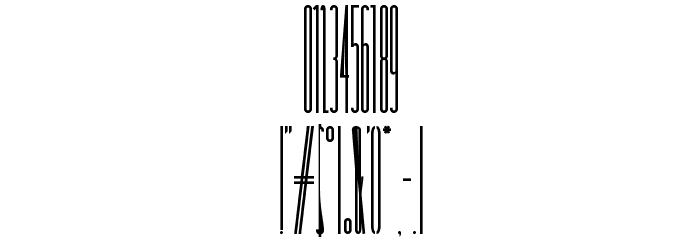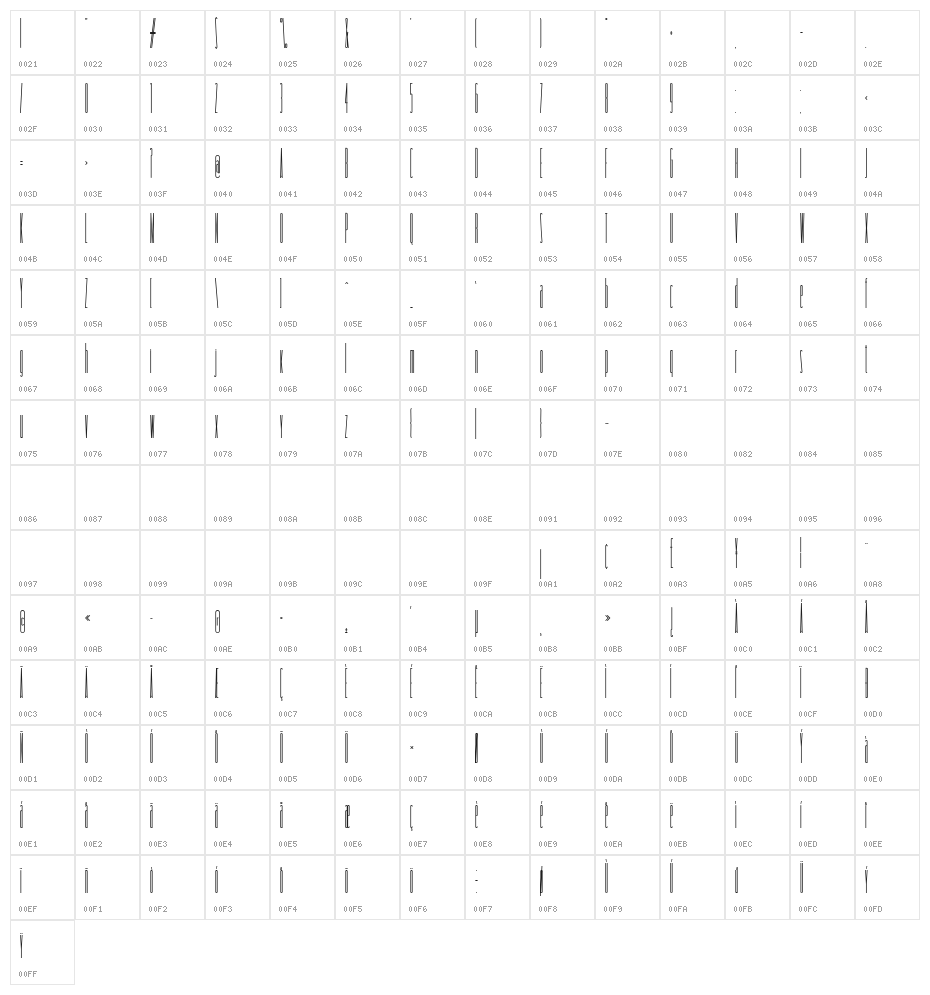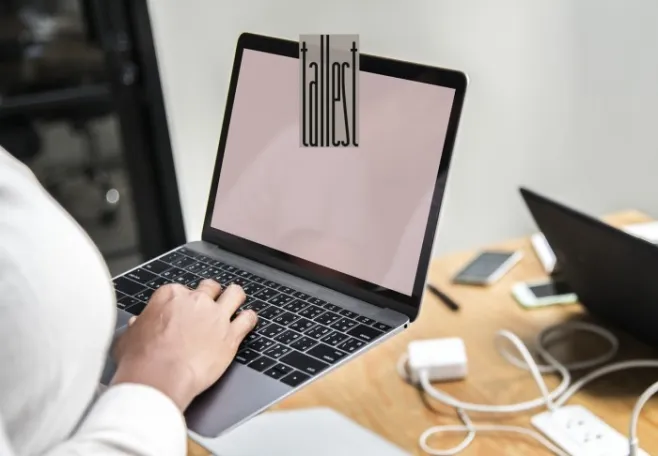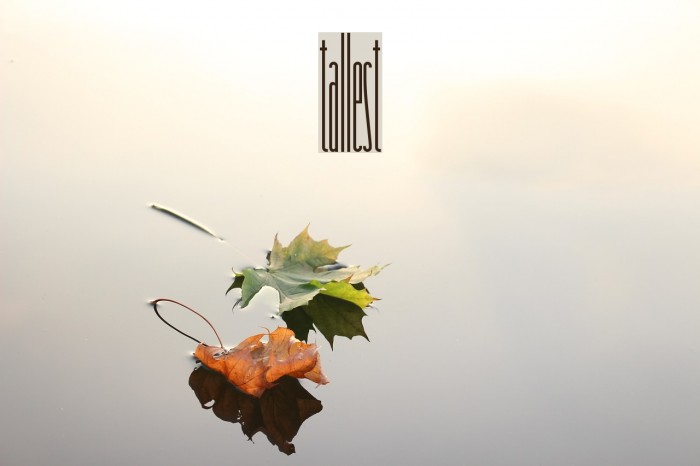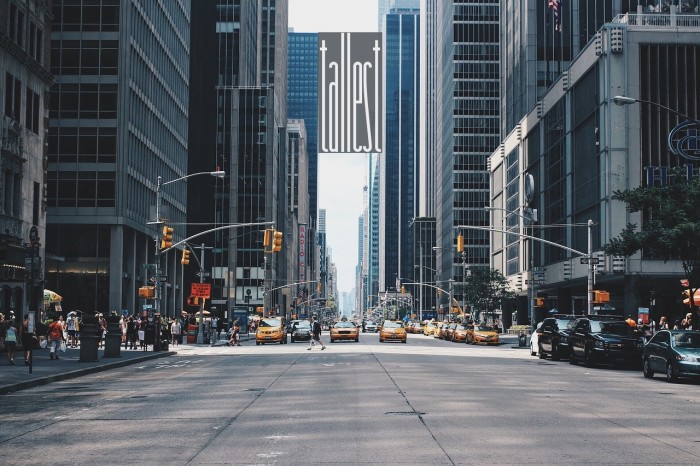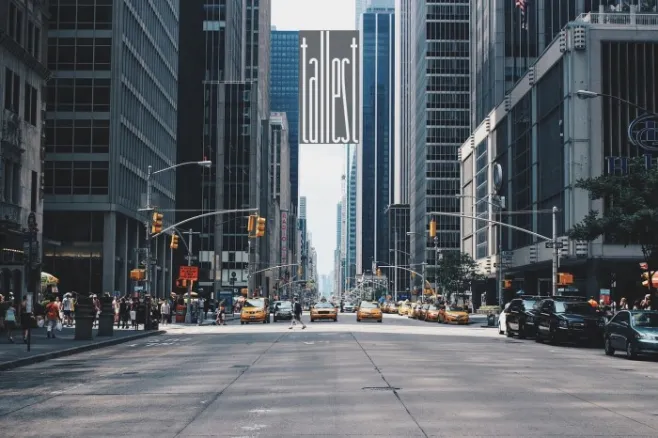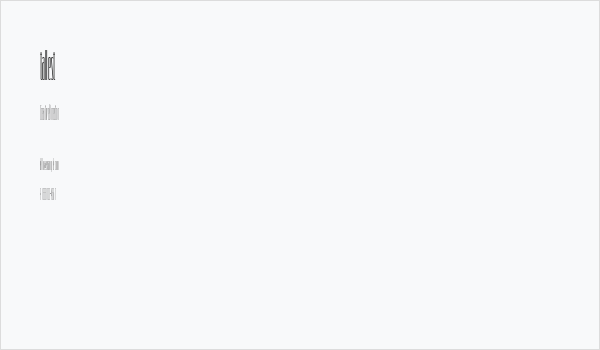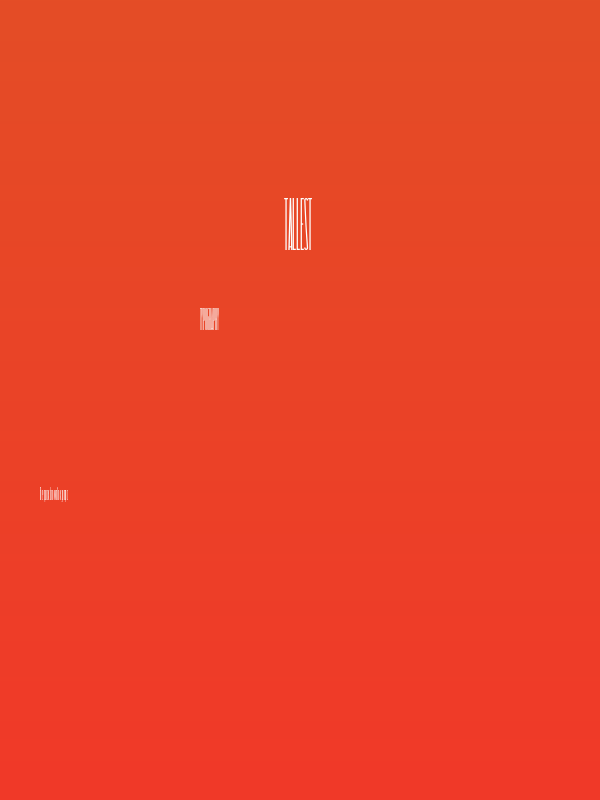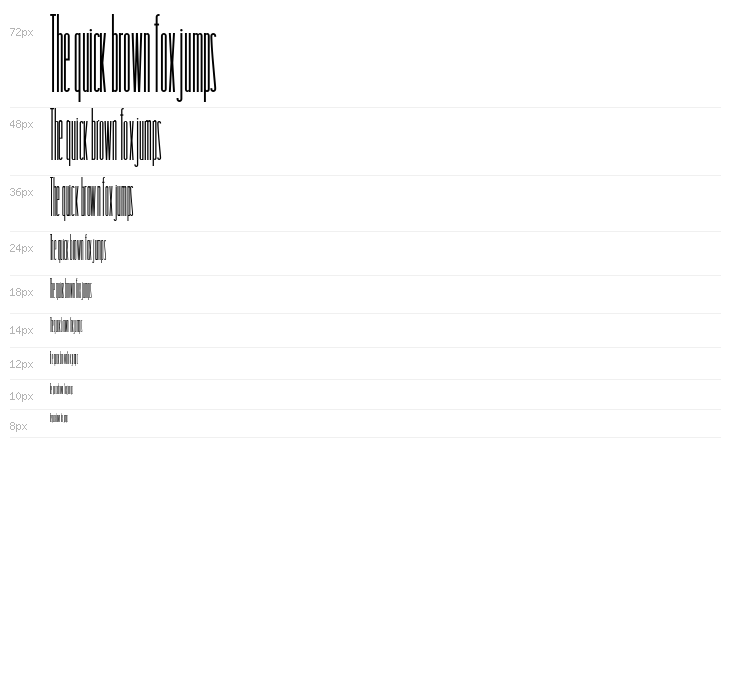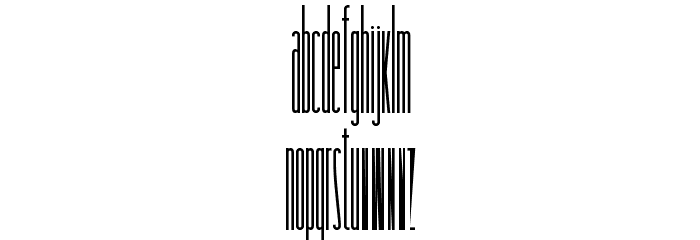
tallest Font
tallest Description
This font features an extremely tall and narrow design, characterized by its elongated letterforms and minimal width. The vertical emphasis is striking, creating a sense of height and elegance. The characters are tightly spaced, enhancing the condensed appearance. The strokes are consistent in thickness, offering a low contrast that maintains uniformity across the typeface. This style is particularly eye-catching and can be used to convey sophistication and modernity. The font includes both uppercase and lowercase letters, numbers, and a selection of special characters, all maintaining the same tall and slender aesthetic.
| Proposed Projects | This font is perfect for fashion branding, magazine headlines, posters, and any project requiring a modern and sophisticated look. |